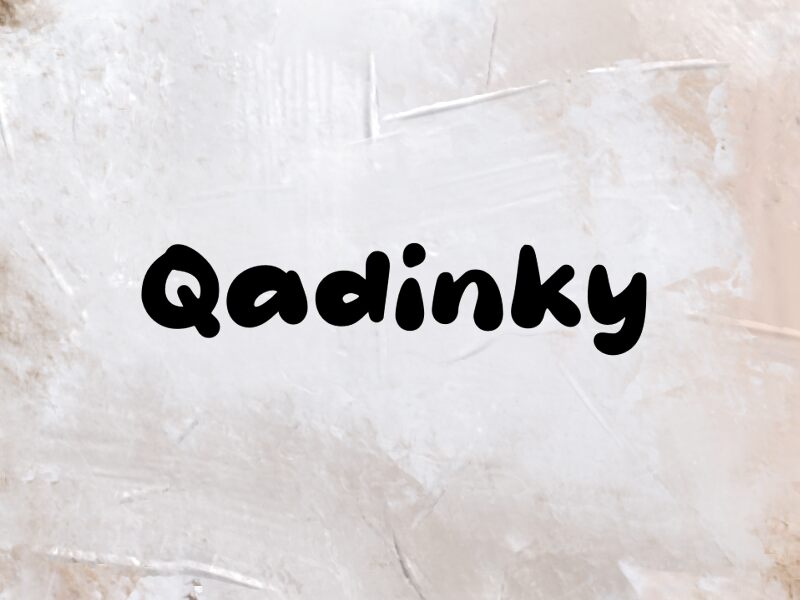
Qadinky font by wep is a free playful font that injects a dose of fun with every letter. The organic design of this sans serif font communicates a friendly and approachable aura perfect for letting the readers of your texts feel comfortable and entertained. The casual typography is perfect for younger audiences and for brands that want to appear younger. It falls into the categories of being relaxed, informal, and whimsical.
Qadinky is great for use in projects targeting a younger audience. Bring its letters to life in children’s books, video games, cartoon shows, comic book covers, or animated movies. It can also be used in less direct ways when added to greeting cards, party invitations, infographics, coloring books, clothing brand logos, product packaging, and posters.
Qadinky is a versatile and stylish free font designed to elevate your creative projects. This font features smooth curves and a modern aesthetic, making it an excellent choice for branding, logos, and other design applications. Its clean lines enhance readability while adding a unique touch to your work.